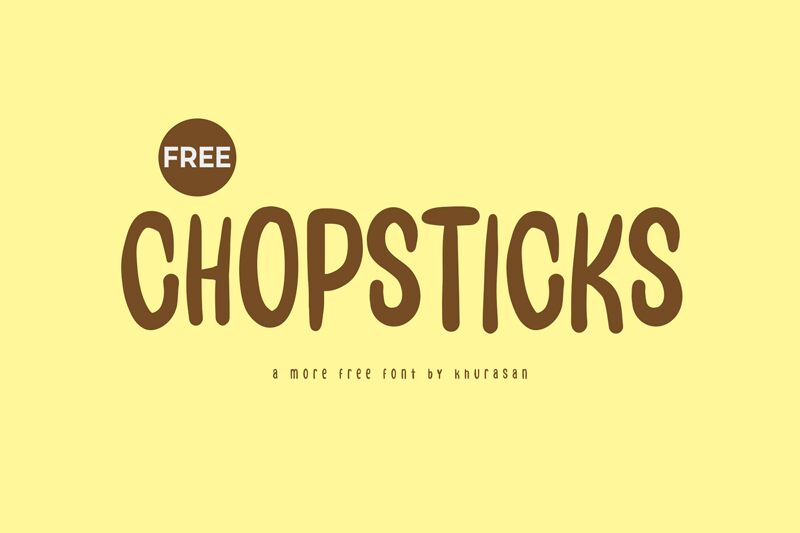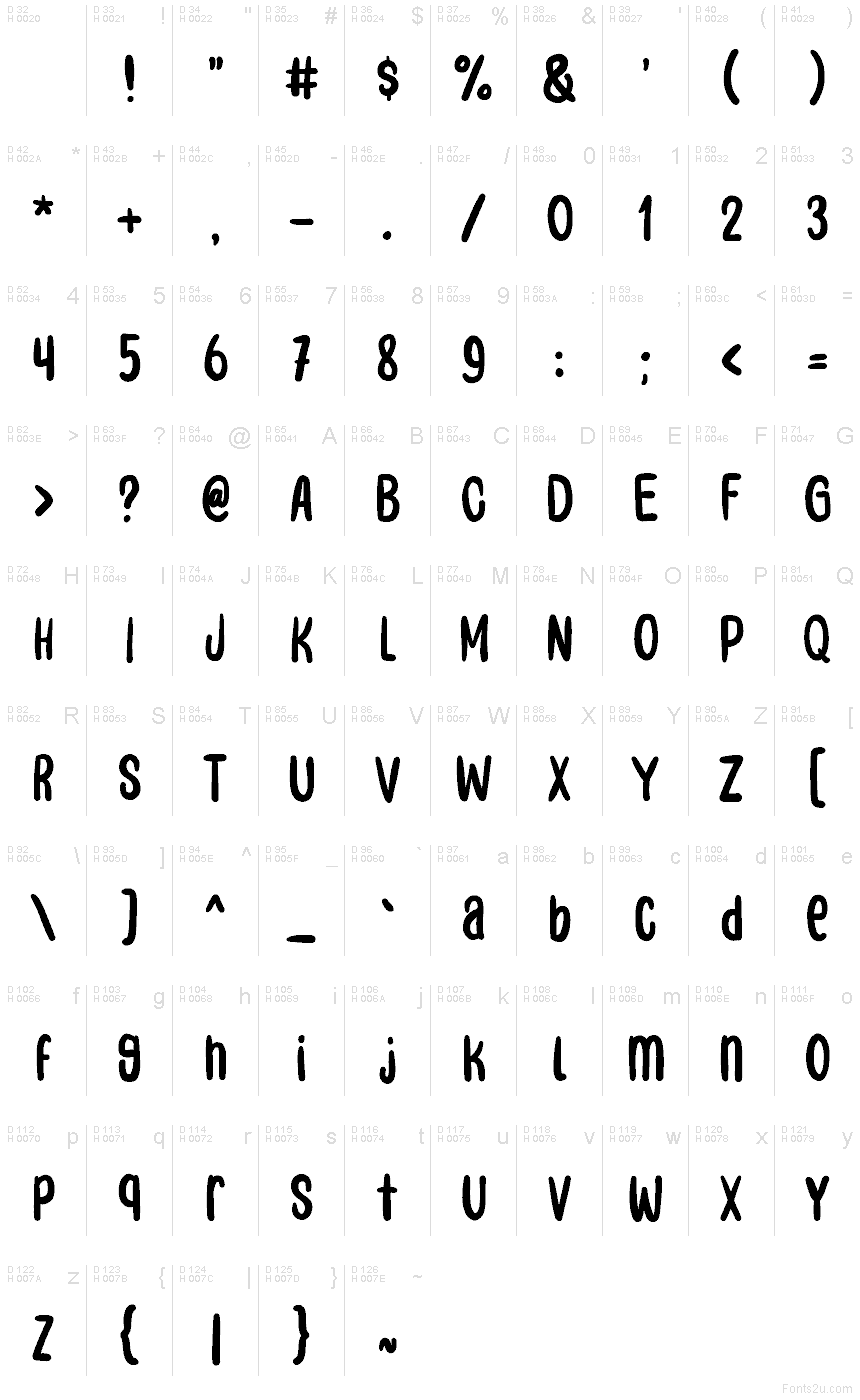
Chopsticks
Chopsticks font by Khurasan is a free handwritten typeface with a chunky, brushy rhythm that feels like it’s been painted in bold ink on a menu board. The tall, rounded letters stack closely together, giving words a cozy, bustling energy that instantly suggests street food stalls, casual cafés, and playful packaging. Soft curves and slightly wobbly lines keep it friendly rather than messy, so it reads clearly even at larger sizes.
Using Chopsticks, you can bring warmth and flavor to ramen shop branding, food truck logos, kids’ menu designs, recipe cards, social media graphics, and cheerful event posters. This free font shines when you let it go big and bold, then pair it with a clean sans serif for body text to keep layouts balanced. Its lively texture makes headlines feel hand-crafted and approachable, without sacrificing legibility.